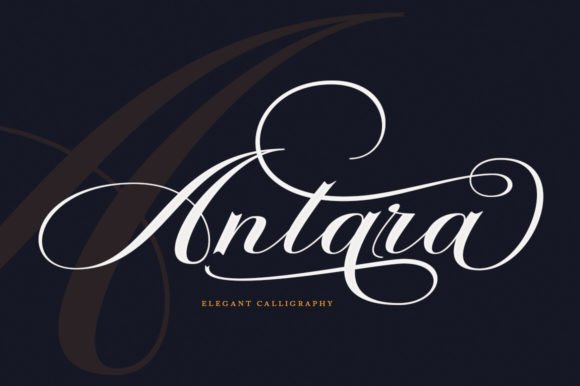
The Elegance of Antara Font: A Designer’s Delight
I’ll never forget the time I was working on a wedding invitation project, and my client asked for a font that exuded elegance and sophistication. I scoured the internet, tried out countless fonts, but nothing seemed quite right. That was until I stumbled upon the Antara Script font. ✨ It was love at first sight! The beautiful, flowing lines, the intricate details, and the luxurious feel – it was exactly what I needed to bring my client’s vision to life.
A Personal Review of Antara Font
• ✨ Elegant and sophisticated: Antara Script is a calligraphy font that oozes class and refinement. Its classic decorative copper script style with a modern touch makes it perfect for formal designs.
• ✅ Smooth and clean lines: The font’s smooth, clean lines make it easy to read and visually appealing.
• 💃 Feminine and sensual: Antara Script has a distinctly feminine and sensual feel, making it ideal for designs that require a touch of glamour.
• 📚 Highly versatile: This font is suitable for a wide range of design projects, from invitations and labels to logos, menus, and more.
While Antara Script is an excellent font, there are a few things to keep in mind: 🤔
• ⚠️ Legibility at small sizes: As with many script fonts, Antara Script can become a bit tricky to read at very small sizes. It’s best used at larger sizes or for headlines.
• ⚠️ Glyph limitations: While the font has a wide range of glyphs, some users may find that it lacks certain special characters or diacritical marks.
3. Experiment with OpenType features like ligatures and stylistic alternates to add more flair to your design.
The Story Behind Antara Font
Antara Font was designed with the goal of creating a beautiful, elegant script font that would evoke the classic feel of copperplate engraving. The designer, inspired by the intricate details and flowing lines of traditional calligraphy, set out to create a font that would be both sophisticated and refined. With its high level of detail and luxurious feel, Antara Font is the perfect choice for designers looking to add a touch of elegance to their projects.
Q: What is Antara Font?
A: Antara Font is a calligraphy font that features beautiful, flowing lines and intricate details, making it perfect for formal designs.
Q: What type of projects is Antara Font suitable for?
A: Antara Font is suitable for a wide range of design projects, including invitations, labels, logos, menus, and more.
Q: Is Antara Font easy to read?
A: Yes, Antara Font is designed to be easy to read, with smooth, clean lines and luxurious letter connections.